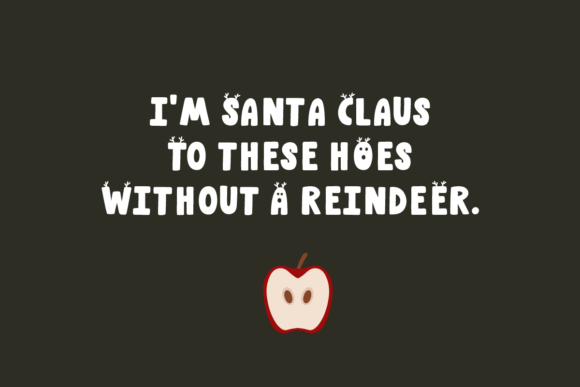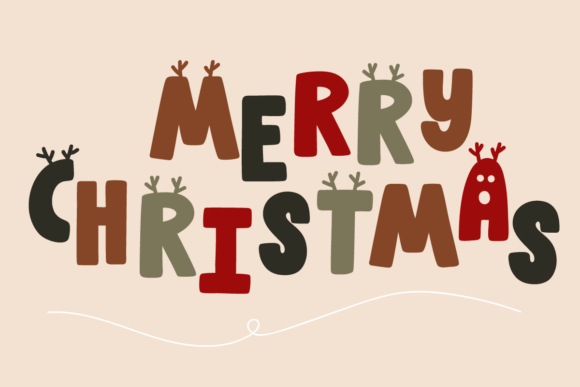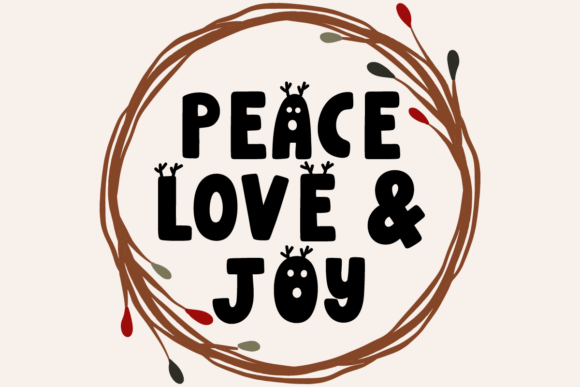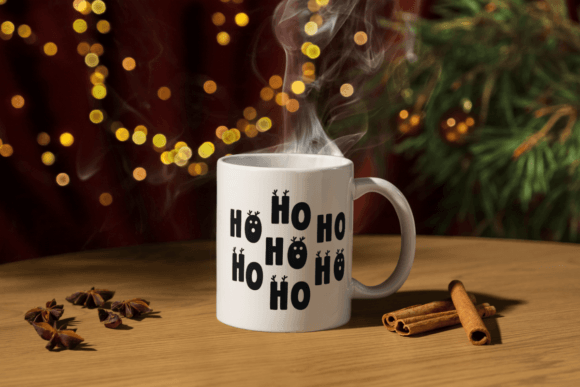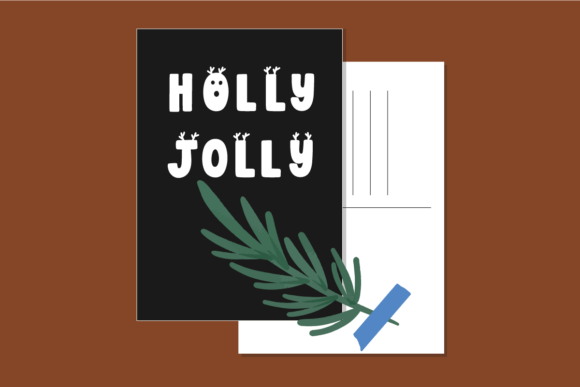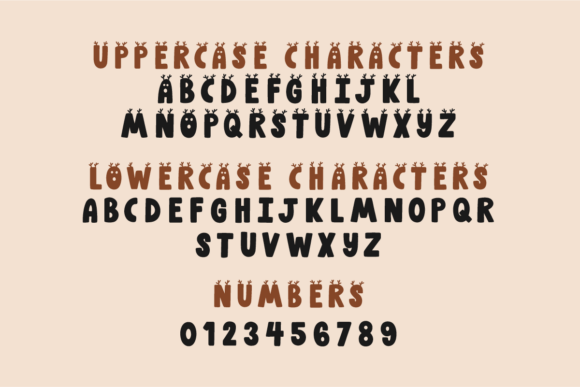
Introduction to Red Nose Font Font
Fonts play a crucial role in design, and the Red Nose Font font is a typeface that brings both character and versatility to any project. Whether you’re working on a branding project, a website, or a print design, the Red Nose Font font offers a unique style that can elevate your work.
Red Nose is a cute Christmas reindeer font.
Perfect for playful projects, shirts, retro designs, Christmas invitations, mugs, stickers, playful quotes, creating posters, logos, greeting cards, packaging, decorating the illustration and so much more .
Key Features of Red Nose Font Font
Why Choose Red Nose Font Font?
The Red Nose Font font is more than just a typeface – it’s a design tool that helps you communicate your message with style and clarity. Its unique character set and versatile design make it suitable for a wide range of applications, from elegant invitations to bold headlines.
With its carefully crafted letterforms and balanced proportions, the Red Nose Font font ensures readability and visual appeal across all mediums.
What makes Red Nose Font font special?
The Red Nose Font font stands out with its unique design, exceptional readability, and versatility across various design applications.